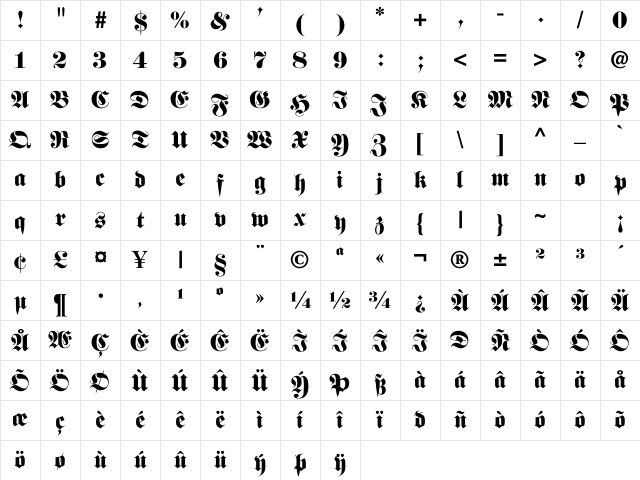
LHF Divine Regular
Foundry: Dave Correll for Letterhead Fonts
Design Context for LHF Divine
LHF Divine is a composed and adaptable typeface that performs quietly and consistently across a wide range of design contexts.
Who designed the LHF Divine Regular font?
This font was published by Dave Correll for Letterhead Fonts. Check the technical specs section for copyright and designer details.